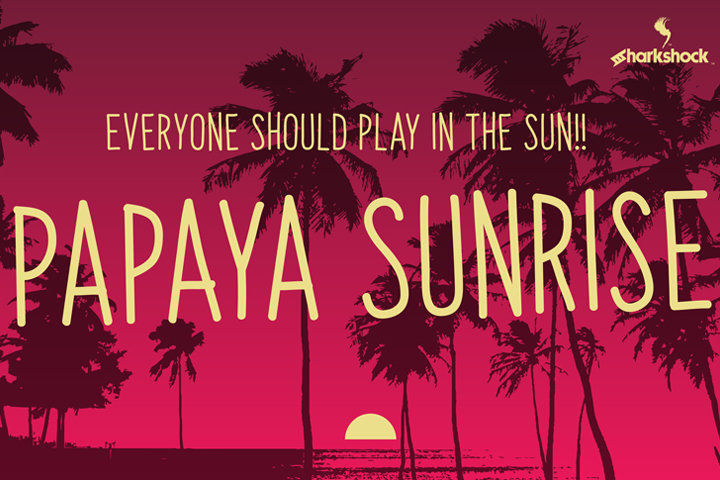
Welcome to the realm of Papaya Sunrise, a whimsical display font that exudes charm and playfulness. This all-caps font is a captivating blend of artistry and legibility, drawing inspiration from the innocent charm of a child's handwriting. Papaya Sunrise is a masterpiece crafted by Sharkshock, an esteemed designer known for creating fonts that infuse life into words.
With its unrefined nature, Papaya Sunrise possesses a raw beauty that sets it apart from ordinary fonts. It revels in its imperfections, embracing the irregularities and fluctuations that give it an endearing, personal touch. This font thrives in settings that demand a touch of informality, settings where it can unleash its vibrant energy and captivate your audience.
Papaya Sunrise shines effortlessly in advertising, where it can transform mundane text into eye-catching headlines that leap off the page. Its playful personality makes it ideal for labels and packaging, adding a dash of whimsy to products that yearn for a unique identity. But perhaps its greatest triumph lies in children's literature, where it weaves tales of wonder and enchantment, becoming an integral part of the storytelling experience.
Beyond its aesthetic appeal, Papaya Sunrise boasts a comprehensive character set that caters to multiple languages. Basic Latin, extended Latin, diacritics, Cyrillic, punctuation, and kerning are all meticulously included, ensuring global accessibility and seamless communication.
Engage your audience with Papaya Sunrise, a display font that radiates joy and creativity. Let its vibrant energy infuse your designs with a new life, igniting sparks of imagination and capturing hearts. Embark on a visual adventure where words dance with delight, and every project becomes a canvas for your boundless creativity.